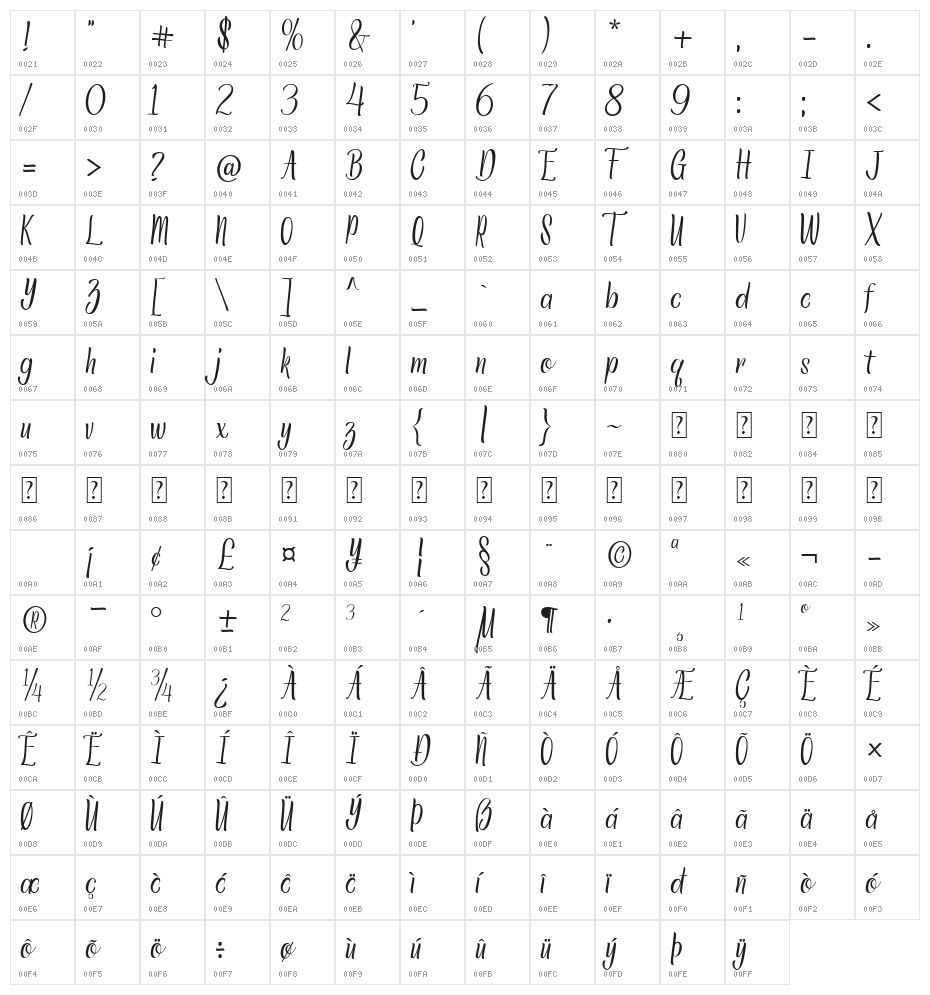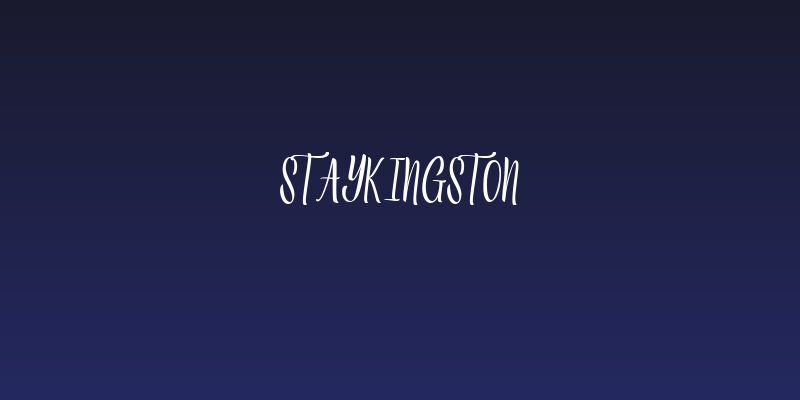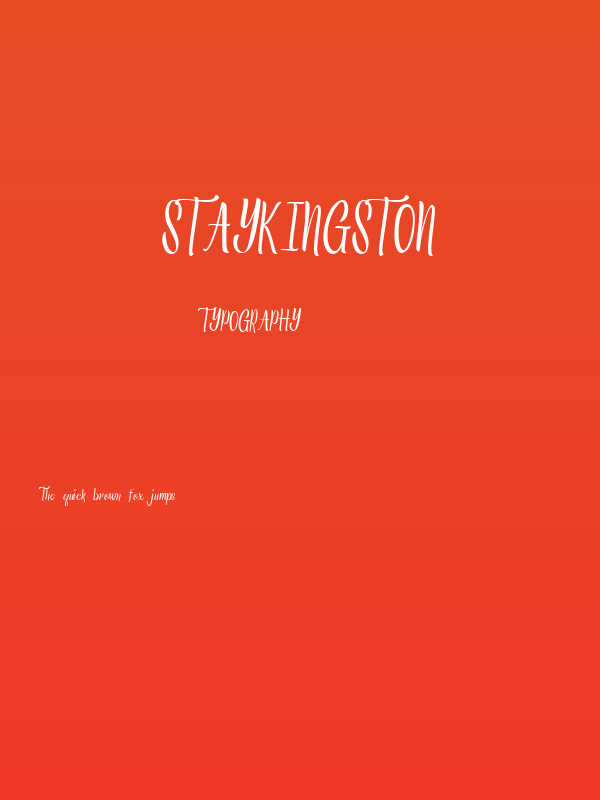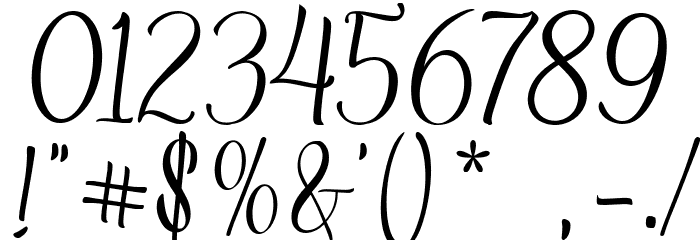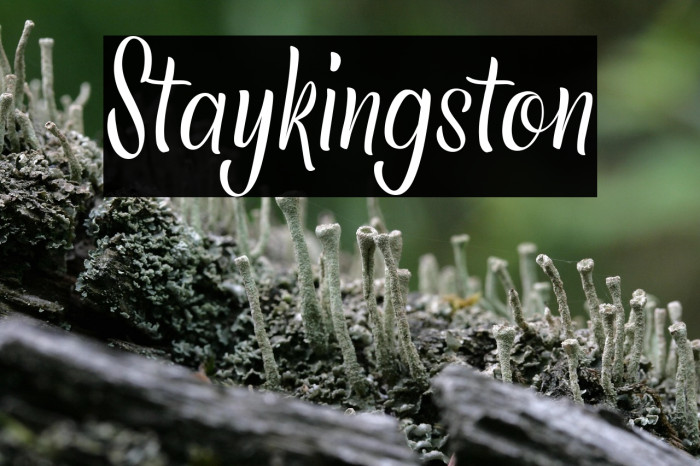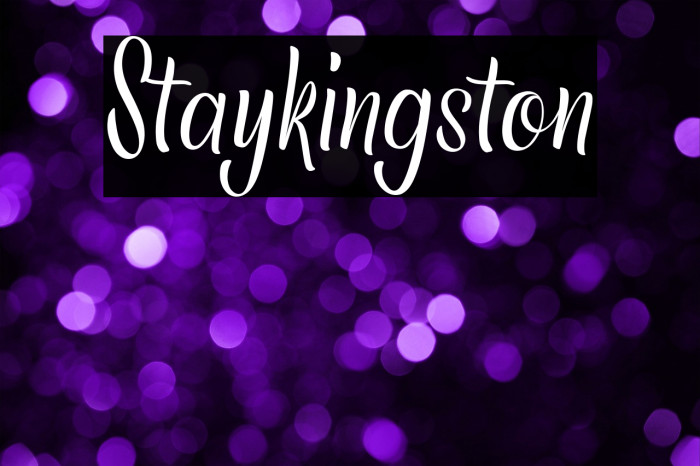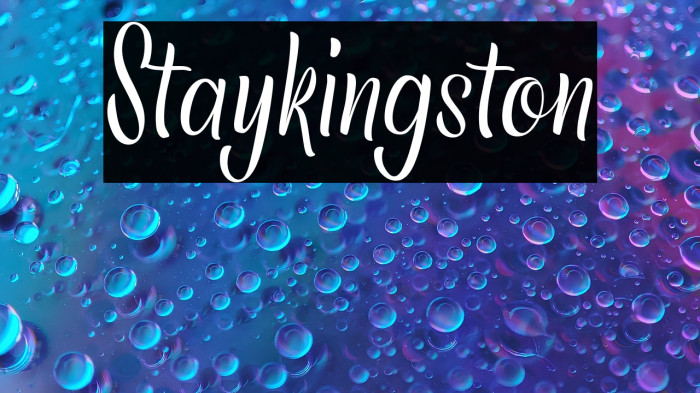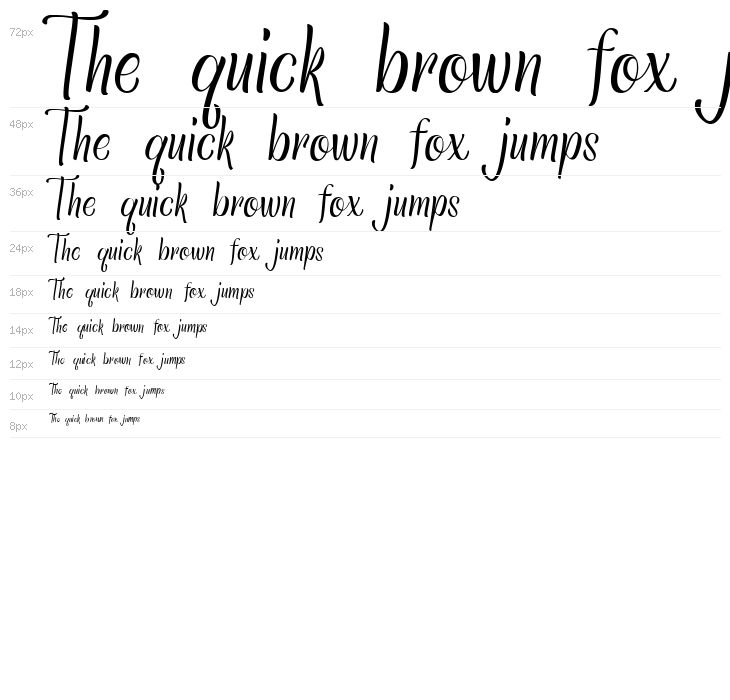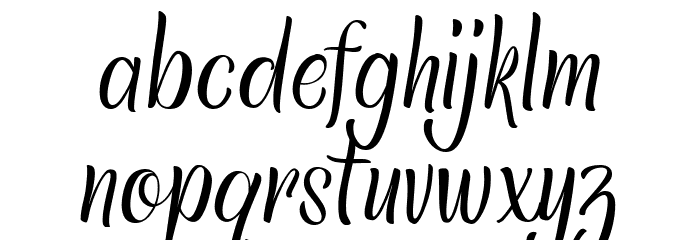
Staykingston Font
Staykingston Description
This font features a playful and energetic script style with a hand-drawn appearance. The letters are slightly slanted, giving a dynamic and lively feel. The strokes are smooth and fluid, with a moderate contrast between thick and thin lines, adding to its casual elegance. The uppercase letters are tall and narrow, while the lowercase letters are more rounded and open, providing a nice balance. The numerals are consistent with the overall style, maintaining the same playful and informal vibe. Special characters are well-integrated, ensuring versatility in various design contexts.